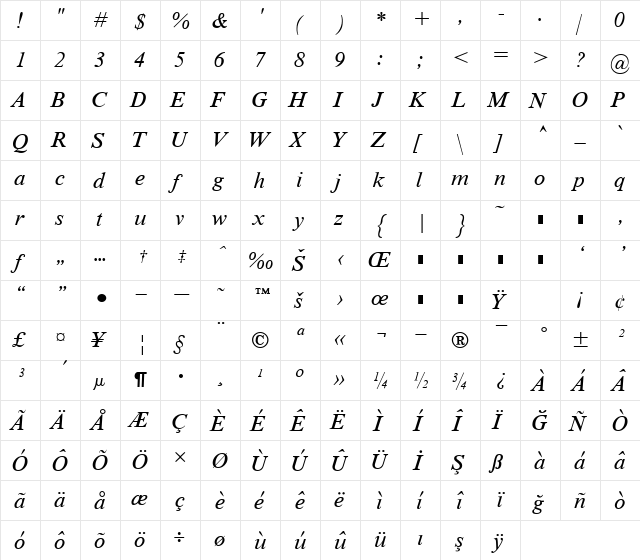
TmsTr Italic
Design Context for TmsTr Typeface
TmsTr is a composed and adaptable typeface that performs quietly and consistently across a wide range of design contexts. The dynamic lean of this cut emphasises speed and emphasis in any layout.
Pro Tip: Try TmsTr for annotation and caption copy alongside an upright companion — the contrast in angle creates a dynamic but ordered typographic system.